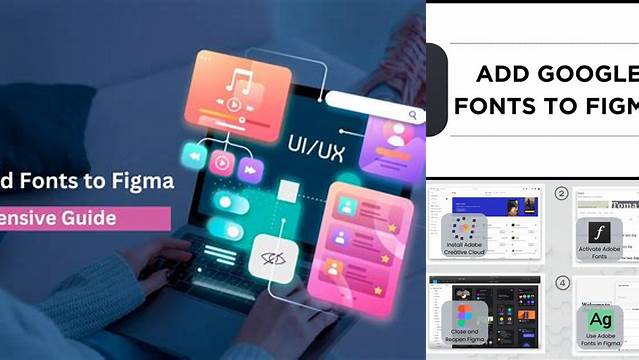
Add Fonts To Figma: The Ultimate Guide
Hey guys! Ever felt like the default fonts in Figma just aren't cutting it? You're not alone! Typography is a crucial element of design, and having the right fonts can make or break your project. Think of fonts as the voice of your design – they convey personality, set the tone, and ensure readability. Using a diverse range of fonts helps you create visually appealing and engaging designs that truly stand out. Imagine trying to design a playful children's book with a serious, corporate font – it just wouldn't work, would it? That's why knowing how to add fonts in Figma is such a game-changer.
This comprehensive guide is your ultimate resource for mastering font management in Figma. We'll walk you through everything from installing local fonts to leveraging the vast Google Fonts library and even exploring third-party font plugins. Whether you're a seasoned designer or just starting out, you'll learn how to expand your typographic palette and elevate your design work. With the right fonts at your fingertips, you can create designs that are not only visually stunning but also effectively communicate your message.
So, why is it so important to learn how to add fonts in Figma? Well, imagine having access to thousands of fonts, each with its own unique character and style. This gives you the creative freedom to experiment, explore different design directions, and ultimately, create designs that perfectly align with your vision. Plus, using custom fonts can help you establish a unique brand identity and maintain consistency across all your design projects. Ready to dive in? Let's get started and unlock the full potential of typography in Figma!
Now, let's explore the wonderful world of Google Fonts! If you're looking for a vast, diverse, and completely free font library, Google Fonts is your ultimate playground. Seriously, guys, it's like a treasure trove of typographic goodness! Google Fonts offers thousands of fonts, ranging from elegant serifs to modern sans-serifs, playful scripts to bold display fonts – you name it, they've probably got it. And the best part? They're all open-source and free to use, even for commercial projects. This means you can confidently use them in your designs without worrying about licensing fees or restrictions.
Using Google Fonts in Figma is incredibly simple and seamless. Figma has a built-in integration with Google Fonts, so you can access the entire library directly within the design tool. No need to download files or install anything – it's all right there at your fingertips. To access Google Fonts in Figma, simply select the text layer you want to style, go to the font selection menu in the right-hand panel, and choose "Google Fonts." You'll then see a comprehensive list of all available Google Fonts, which you can browse, search, and preview.
One of the best things about Google Fonts is the ability to filter and sort fonts based on various criteria, such as category, font weight, and popularity. This makes it easy to find the perfect font for your project, whether you're looking for a clean and readable font for body text or a bold and impactful font for headlines. You can even preview fonts directly on your design to see how they look in context. Plus, Google Fonts are optimized for web use, so you can be sure they'll render beautifully on any device. By mastering the art of leveraging Google Fonts in Figma, you'll unlock a world of typographic possibilities and take your designs to the next level. So go ahead, explore the library, experiment with different fonts, and discover the perfect typographic voice for your projects!
Okay, so we've covered installing local fonts and using Google Fonts, but what if you want to take your font game even further? That's where font plugins come in! Figma's plugin ecosystem is a fantastic resource for extending the functionality of the design tool, and there are several plugins specifically designed to help you manage and access fonts. Think of plugins as supercharging your Figma experience, adding extra features and capabilities that can streamline your workflow and boost your creativity. Font plugins, in particular, can open up a whole new world of typographic possibilities.
One of the main benefits of using font plugins is the ability to access fonts from third-party providers. While Google Fonts offers a vast library, there are many other amazing font foundries and marketplaces out there with unique and high-quality fonts. Font plugins can help you connect to these resources and import fonts directly into Figma. This means you can expand your font collection beyond the standard options and find those truly special fonts that will make your designs stand out. Plus, some font plugins offer additional features like font pairing suggestions, font previews, and even the ability to create custom font libraries.
There are several popular font plugins available for Figma, each with its own unique set of features and capabilities. Some plugins focus on font management, allowing you to organize your fonts into collections and quickly find the ones you need. Others focus on font discovery, helping you explore new fonts and find inspiration for your projects. And some plugins offer a combination of both, providing a comprehensive solution for all your font-related needs. To find font plugins in Figma, simply go to the Plugins menu and search for keywords like "fonts" or "typography." You can then browse the available plugins, read reviews, and install the ones that best suit your needs. By utilizing font plugins, you can supercharge your font workflow in Figma and unlock even more creative potential.
Alright, let's be real – sometimes things don't go as smoothly as we'd like. You've installed a font, but it's not showing up in Figma, or maybe a font is rendering incorrectly. Don't panic! Font issues are common, and there are usually simple solutions. Think of troubleshooting as being a design detective, figuring out the clues to solve the mystery of the missing or misbehaving font. Having a systematic approach to troubleshooting can save you time and frustration, allowing you to get back to designing without delay.
One of the most common font issues in Figma is that a newly installed font isn't showing up in the font list. As we mentioned earlier, the first thing to try is restarting Figma or your computer. This often resolves the issue by forcing Figma to refresh its font cache. If that doesn't work, you can try clearing Figma's cache manually. To do this, go to the Figma menu, select "Help," and then choose "Reset to Defaults." This will clear Figma's cache and restart the application. Another potential cause of font issues is font file corruption. If a font file is damaged or incomplete, it may not install correctly or render properly in Figma. To fix this, try downloading the font file again from the original source.
Another common issue is font licensing. If you're using a font without the proper license, it may not be displayed correctly in Figma or may even cause errors. Always make sure you have the appropriate license for the fonts you're using, especially for commercial projects. If you're still having trouble with a particular font, you can try contacting the font foundry or marketplace for support. They may be able to provide additional troubleshooting steps or help you resolve any licensing issues. By being prepared to troubleshoot font issues, you can overcome common challenges and ensure that your designs always look their best. Remember, a little detective work can go a long way in solving font mysteries!
So, there you have it, guys! You've now got the knowledge and skills to add and manage fonts like a pro in Figma. We've covered everything from installing local fonts to leveraging Google Fonts and utilizing font plugins. You've also learned how to troubleshoot common font issues, ensuring that your designs always look their best. Mastering font management is a crucial step in becoming a confident and skilled designer, and it opens up a world of creative possibilities. Think of fonts as the spices in your design recipe – they add flavor, personality, and impact to your creations.
By understanding how to add and manage fonts effectively, you can create designs that are not only visually appealing but also communicate your message clearly and effectively. You can experiment with different font pairings, explore various typographic styles, and ultimately, create designs that truly stand out. Remember, typography is more than just choosing a font – it's about creating a visual hierarchy, establishing a consistent tone, and ensuring readability. With the right fonts and the right techniques, you can transform your designs from ordinary to extraordinary.
So go ahead, guys, start exploring the world of fonts! Experiment with different options, try out new plugins, and don't be afraid to break the rules. The more you practice and experiment, the better you'll become at choosing the perfect fonts for your projects. And remember, the fonts you choose can have a significant impact on the overall success of your designs. Happy designing, and may your fonts always be on point!